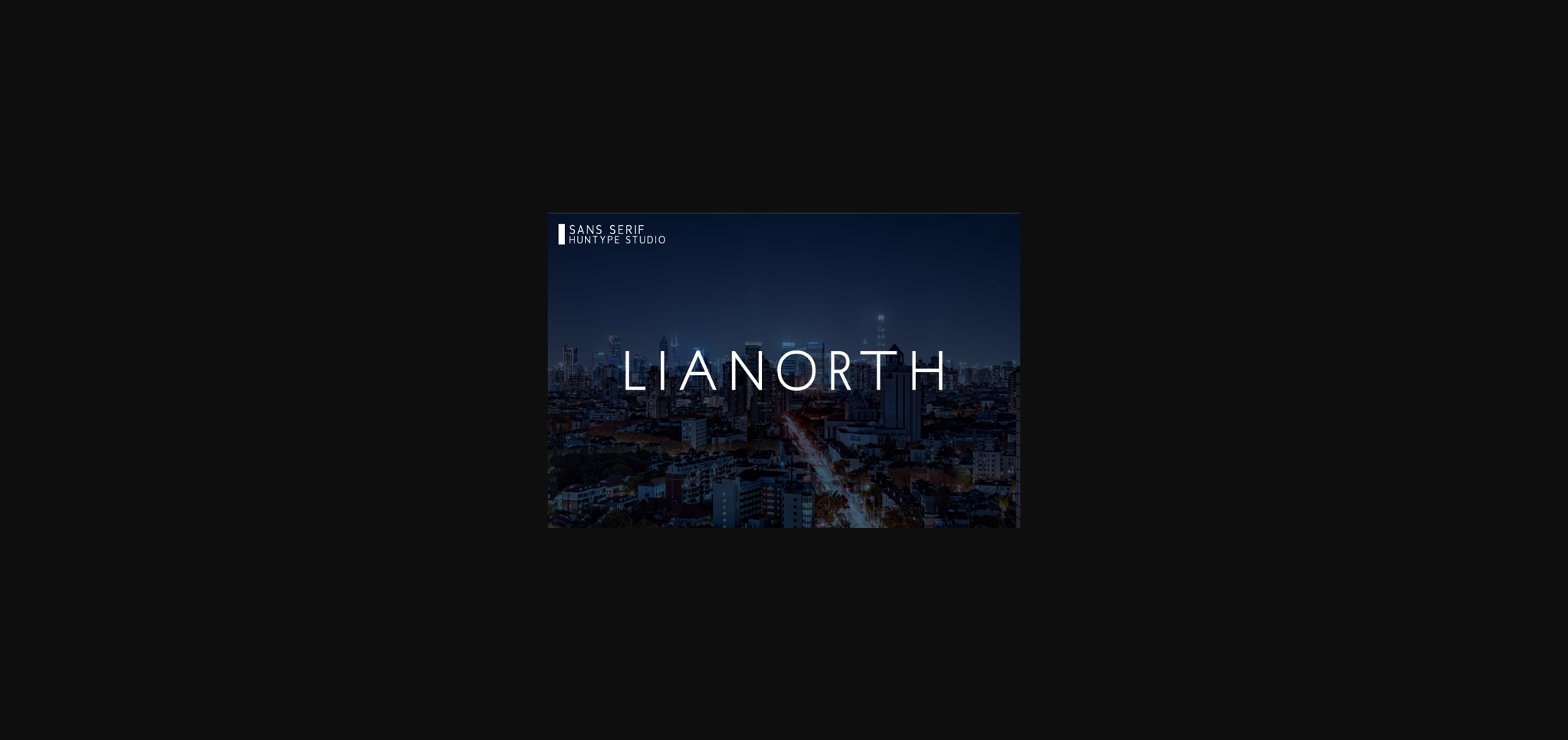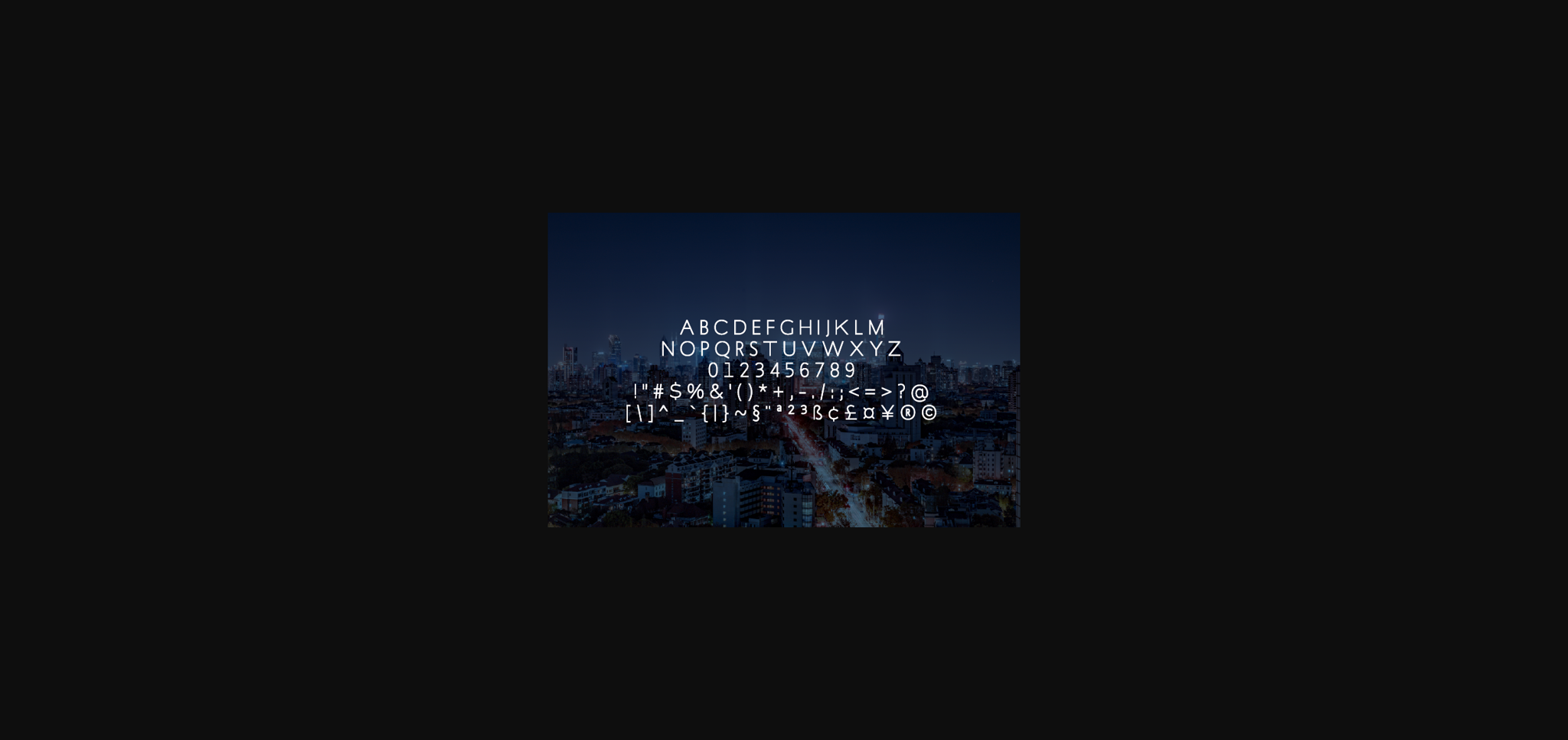
HomeSans Serif FontsLianorth Font Sans Serif Fonts Lianorth Font FacebookXPinterestWhatsApp 1 of 4 ... Lianorth Font Poster 2... Lianorth Font Poster 3... Lianorth Font Poster 4... About Lianorth Font Lianorth is inspired by classic typography and brings its own unique style to any design project. Use it to create beautiful logos, cute greeting cards, eye-catching headlines and much more! DOWNLOAD NOW People also explored Anaheim Script Pro Magic Spring Font Sweet Home Font Little Farmhouse Font Maldivera Font Instyle Font Valentine Moon Font Anderta Font Barlie Font 505 0 TagsLianorth Font Previous articleHerana FontNext articleCapengoru Font LEAVE A REPLY Cancel reply Comment: Please enter your comment! Name:* Please enter your name here Email:* You have entered an incorrect email address! Please enter your email address here Website: Save my name, email, and website in this browser for the next time I comment. Personal Use Free Die Nasty Personal Use Free Read more about this font Shawaki Personal Use Free Read more about this font The Pottery Personal Use Free Read more about this font Histeria Bites Personal Use Free Read more about this font BLOG How to Install and Use Fonts on Windows, macOS, and Web Projects How to Install and Use Fonts on Windows, macOS, and Web Projects Fonts are a crucial part of design and branding. Whether you’re designing a... The 10 Best Handwriting Fonts to Add Personality to Your Designs To increase your work productivity, choose the most readable fonts. How to Cut Any Font on Cricut: Convert a Font to SVG (Free)